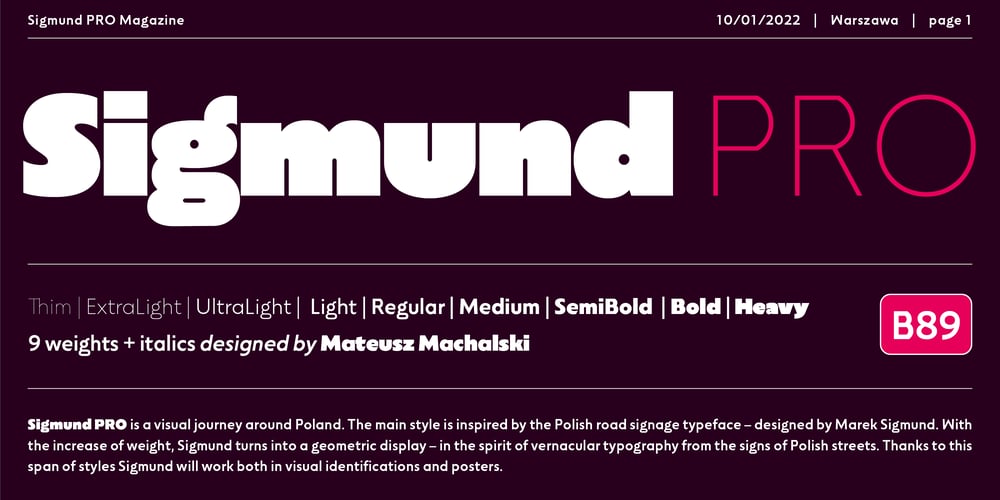
Sigmund PRO Font Family was designed by Mateusz Machalski and published by Machalski. Sigmund PRO contains 18 styles and family package options. Sigmund PRO is a visual journey around Poland. The main style is inspired by the Polish road signage typeface – designed by Marek Sigmund. With the increase of weight, Sigmund turns into a geometric display – in the spirit of vernacular typography from the signs of Polish streets. Thanks to this span of styles Sigmund will work both in visual identifications and posters. The family consists of 18 varieties and has many alternative characters.